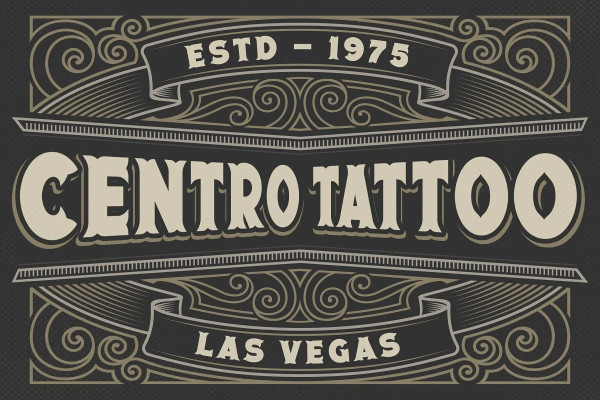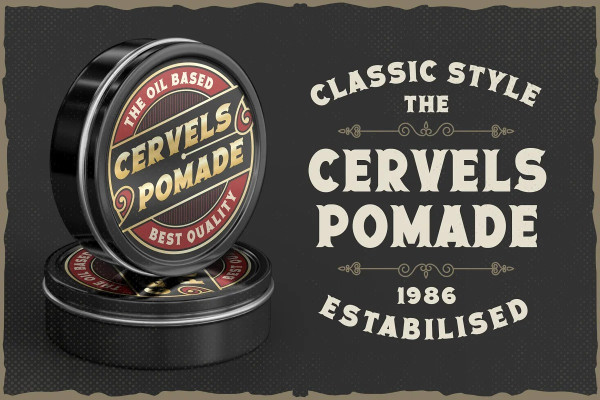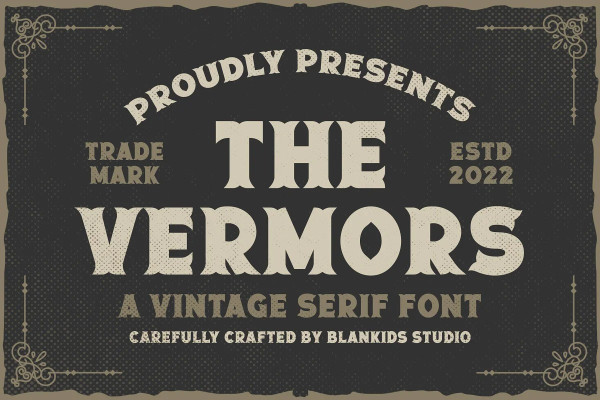
Vermors Font
Vermors Font a Vintage Serif Font a Vintage Display Font, Inspiring from vintage style typography. This font is perfect for a design that makes it more attractive and playful. made with a very good level of aesthetics making this font suitable for book cover, poster, packging, merchandise, logotype and much more.